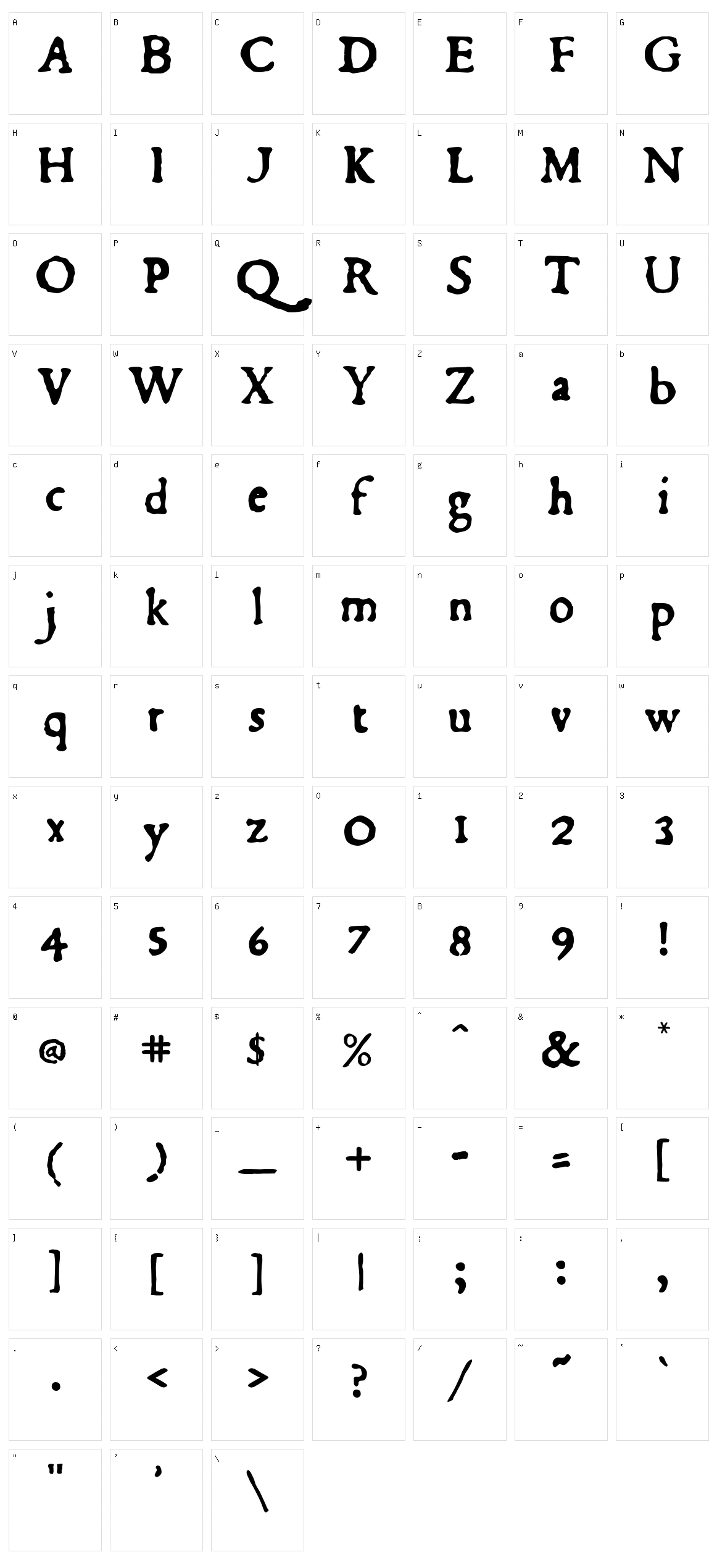
The free font Du Bellay is carefully designed by Daniel Midgley, showcasing a thoughtful balance of creativity and usability and falls under the Eroded font style. When you download the ZIP file, it contains only 225.03 KB of font files, making it lightweight and quick to download. Please review the license details below to understand permitted usage and distribution rights. If license information is not available, we recommend using this font for personal projects only or contacting the author directly for commercial usage permissions.